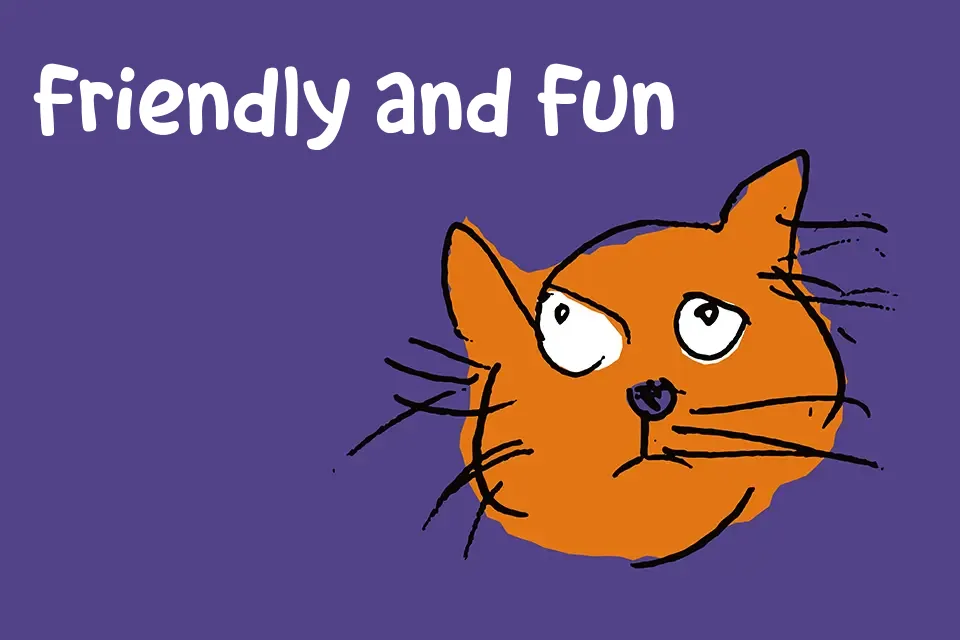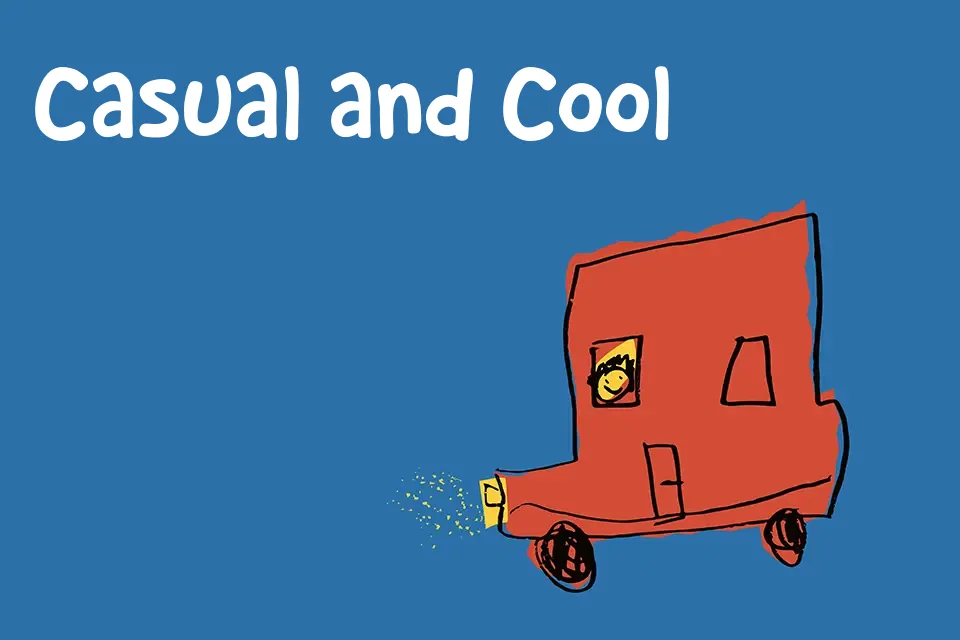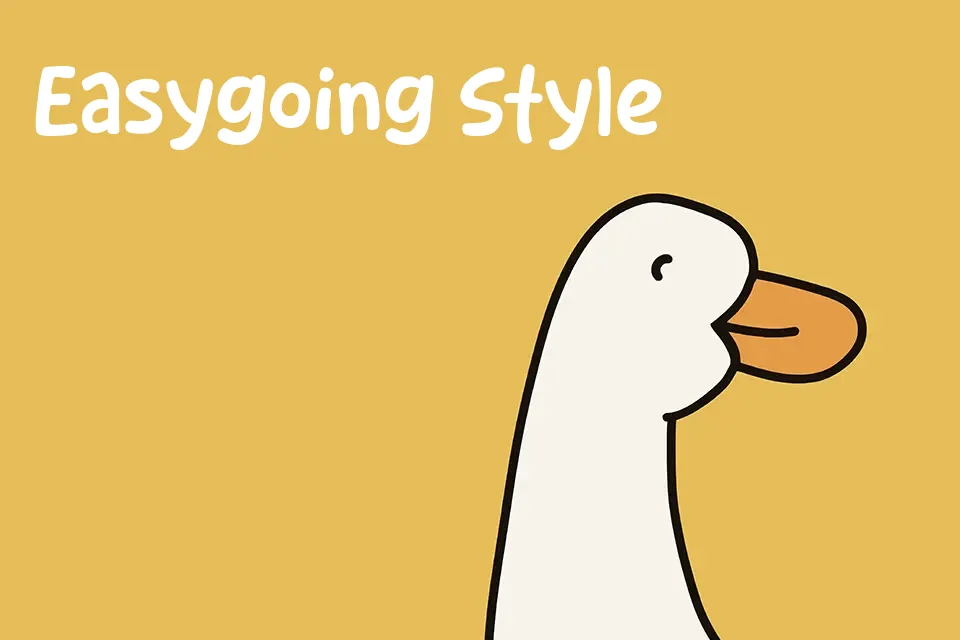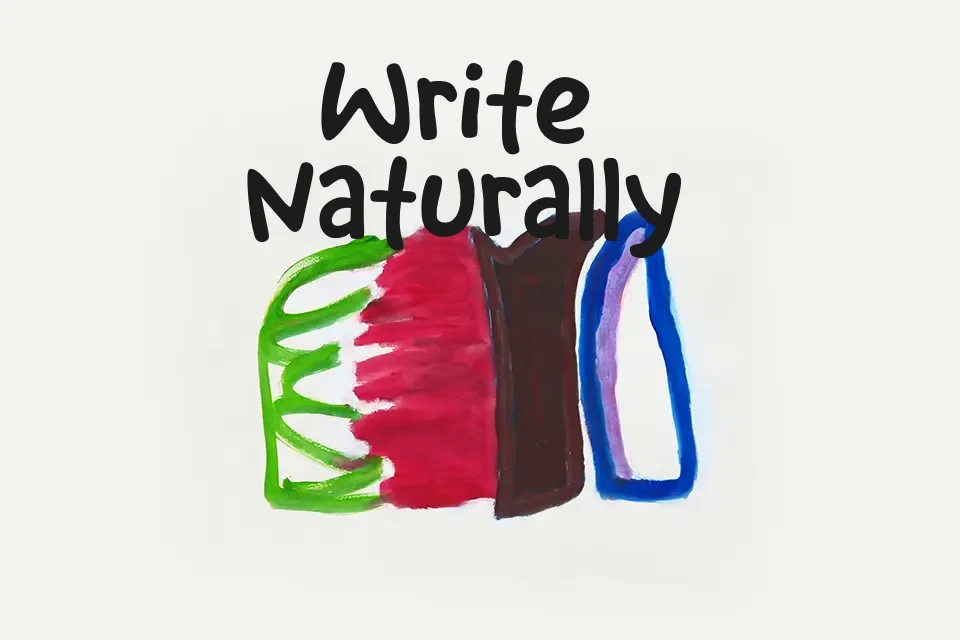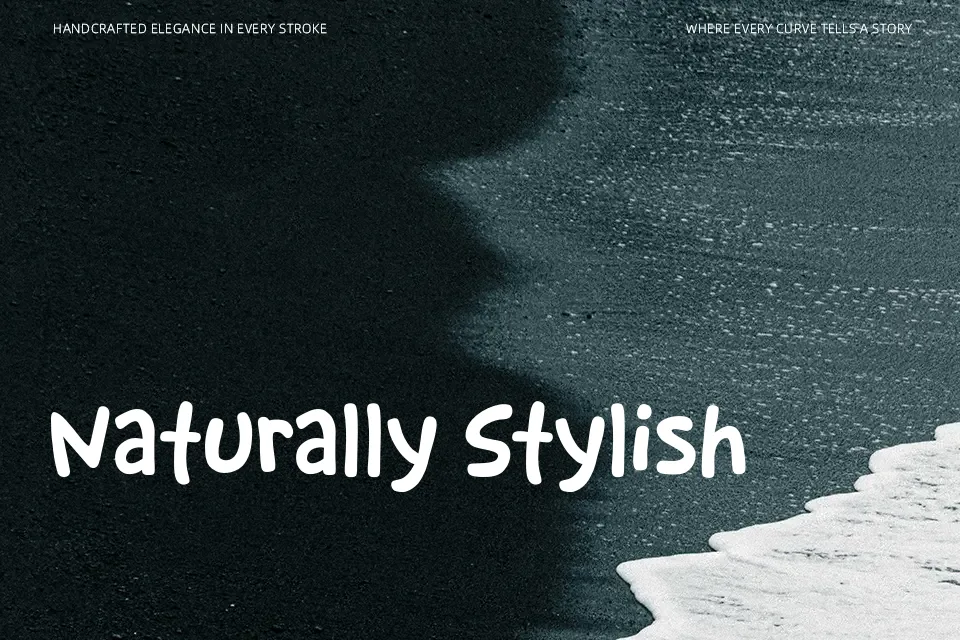
Biscuitos Font
Designed by Khurasan™
Biscuitos features thick, rounded strokes and organic letterforms that create a welcoming, hand-drawn aesthetic. The slightly bouncy baseline and informal spacing give the characters a natural, lively rhythm while maintaining excellent legibility. It leans heavily into a warm and playful cartoon style, making it incredibly effective for projects that need an approachable charm. Designers will find it highly capable for children’s apparel packaging, whimsical event posters, lighthearted bakery logos, and indie game titles. The balanced weight allows it to stand out on merchandise tags and digital thumbnails alike. However, because of its inherently relaxed and whimsical nature, this typeface struggles in corporate presentations or luxury fashion branding where a strict, elegant formality is expected.
Children’s apparel and toy packaging
Whimsical bakery menus and branding
Casual digital thumbnails and game titles
Corporate financial reports and legal forms
High-end luxury fashion campaigns
Lengthy editorial body paragraphs
Perfect for gaming, kids, and logo, with a cute and cartoon style.